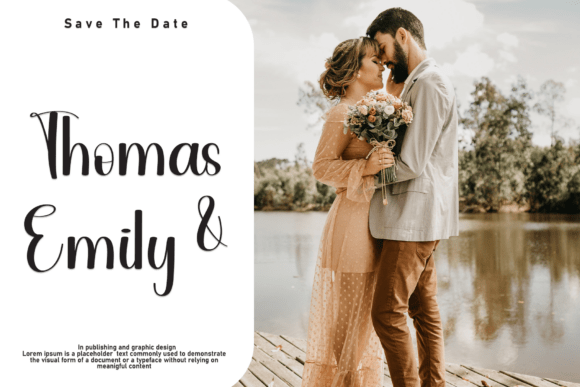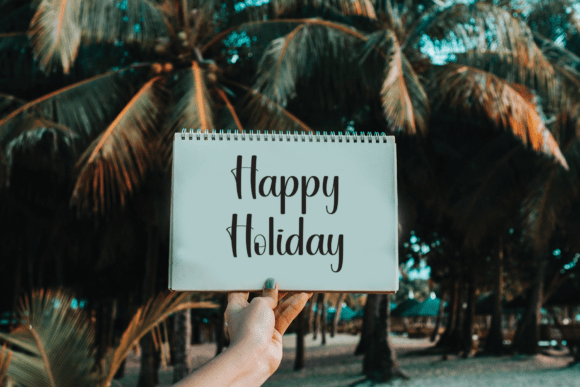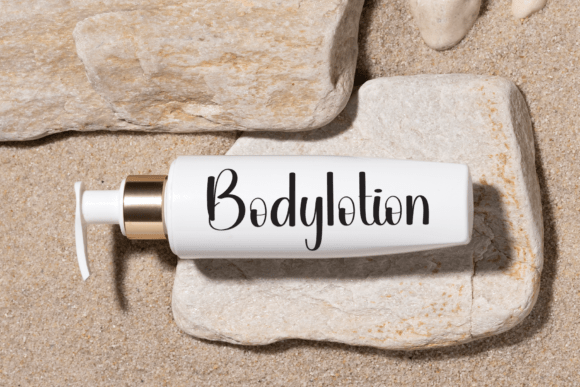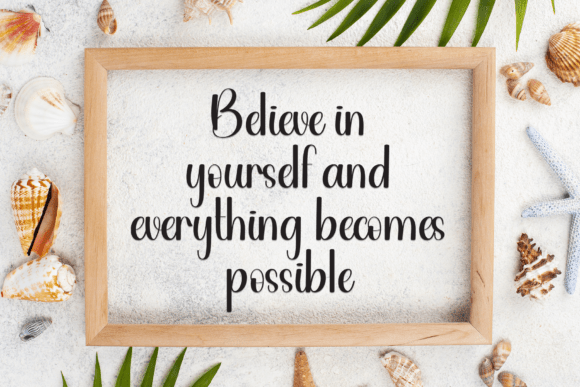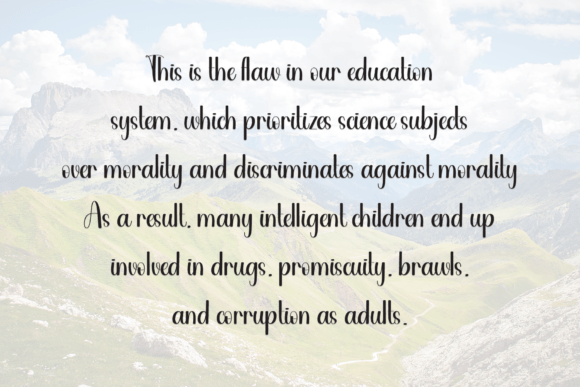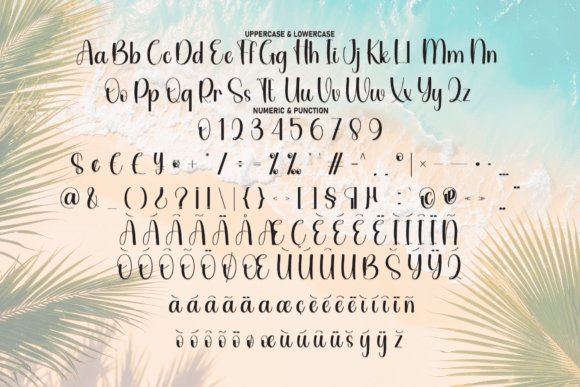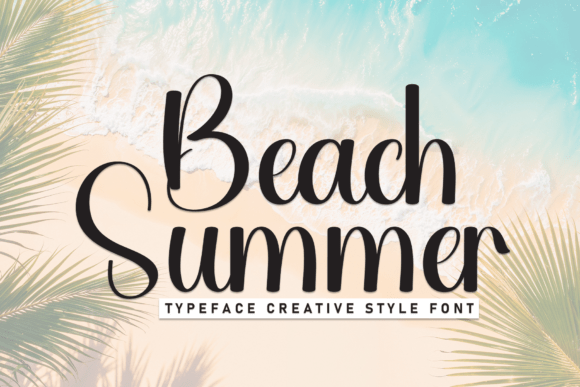
Introducing Beach Summer: The Ultimate Script Font for Your Creative Projects
Are you looking for a font that embodies the carefree spirit of summer and adds a touch of artistic elegance to your designs? Look no further than Beach Summer, a stylish script font that is sure to elevate your creative projects to the next level. With its fluid brush strokes, dynamic curves, and expressive letterforms, Beach Summer captures the essence of hand-painted calligraphy with a modern twist.
The Perfect Blend of Artistic Flair and Contemporary Elegance
Beach Summer is more than just a font – it’s an artistic statement. Its unique blend of traditional calligraphy and modern design makes it perfect for designers and crafters who want to add a creative and sophisticated touch to their work. Whether you’re designing a logo, invitation, packaging, or social media graphics, Beach Summer is the ideal choice.
Key Features of Beach Summer Font
- Fluid Brush Strokes: Beach Summer features fluid brush strokes that give it a natural, hand-painted look.
- Dynamic Curves: The font’s dynamic curves add a touch of elegance and sophistication to any design.
- Expressive Letterforms: Each letterform in Beach Summer is uniquely designed to convey a sense of artistic flair and creativity.
- Modern Twist: The font’s modern twist makes it perfect for contemporary designs and projects.
Why Choose Beach Summer Font?
So, why should you choose Beach Summer font for your creative projects? Here are just a few reasons:
- Versatility: Beach Summer is a versatile font that can be used for a wide range of design projects, from logos and invitations to packaging and social media graphics.
- Visual Impact: The font’s unique design and fluid brush strokes make it a great choice for designers who want to make a visual impact.
- Elegance: Beach Summer adds a touch of elegance and sophistication to any design, making it perfect for high-end brands and luxury products.
How to Use Beach Summer Font in Your Designs
Using Beach Summer font in your designs is easy. Here are a few tips to get you started:
- Pair it with Other Fonts: Beach Summer looks great when paired with other fonts, such as sans-serif fonts or serif fonts.
- Use it for Headings: The font’s unique design makes it perfect for headings and titles.
- Add a Pop of Color: Beach Summer looks great with bright, bold colors that add a pop of fun to your design.
- Experiment with Different Sizes: The font’s versatility makes it perfect for use in different sizes, from large headings to smaller text.
Who Can Benefit from Beach Summer Font?
Beach Summer font is perfect for a wide range of designers and crafters, including:
- Graphic Designers: Graphic designers who want to add a touch of elegance and sophistication to their designs.
- Branding Experts: Branding experts who want to create a unique and memorable brand identity.
- Digital Artists: Digital artists who want to add a creative and artistic touch to their work.
- Crafters: Crafters who want to create beautiful and unique handmade projects.
In conclusion, Beach Summer font is a stylish script font that is perfect for designers and crafters who want to add a touch of artistic elegance to their creative projects. With its fluid brush strokes, dynamic curves, and expressive letterforms, Beach Summer captures the essence of hand-painted calligraphy with a modern twist. Its versatility, visual impact, and elegance make it a great choice for a wide range of design projects. So why wait? Download Beach Summer font today and start creating beautiful and unique designs that are sure to impress.